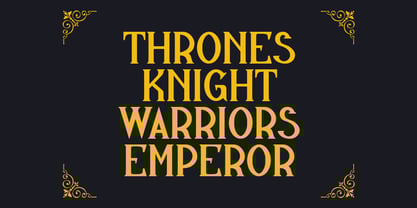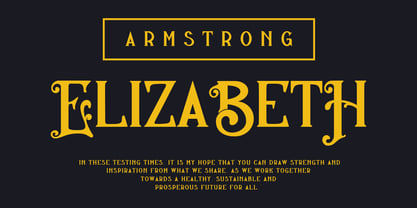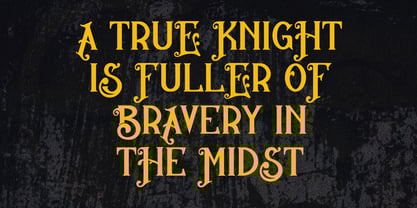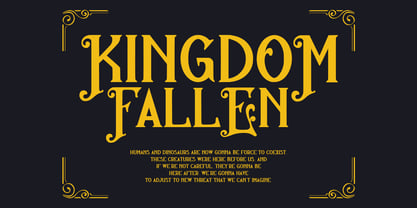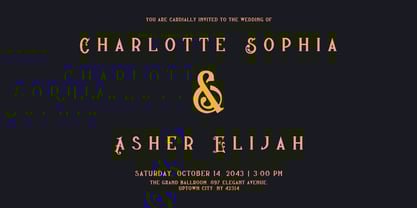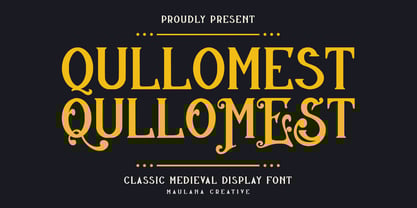
MC Qullomest
von Maulana Creative
Die Schriftfamilie MC Qullomest wurde von Gilang Maulana entworfen und von Maulana Creative veröffentlicht. MC Qullomest enthält 1 Stile.
Qullomest is a experimental classic serif display font. Bold stroke, fun character with a bit of alternates. To give you an extra creative work. Qullomest font support multilingual more than 100+ language. This font is good for logo design, Social media, Movie Titles, Books Titles, a short text even a long text letter and good for your secondary text font with script or serif. Make a stunning work with Qullomest font.
Designer: Gilang Maulana